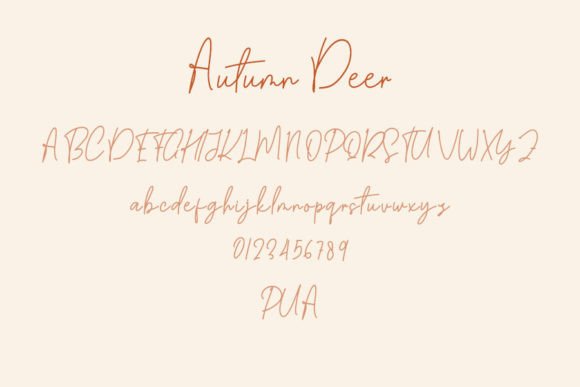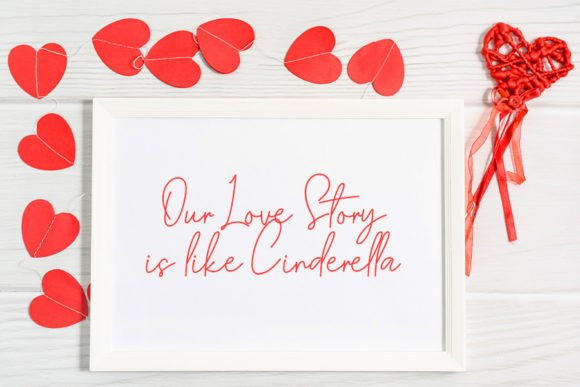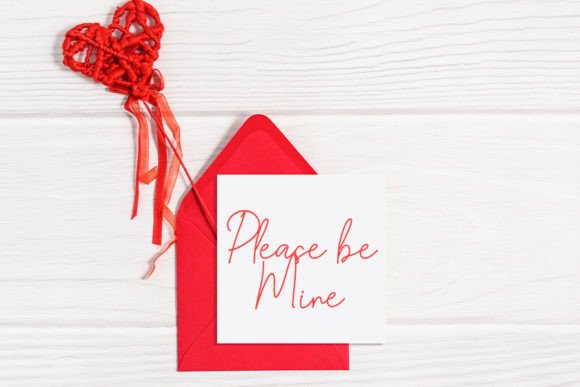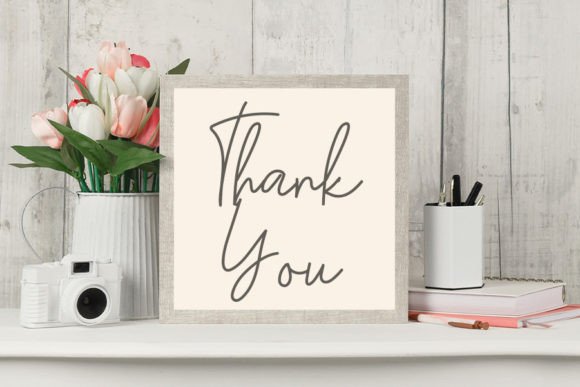
Get Ready to Fall in Love with Autumn Deer Font
As the leaves change colors and the crisp autumn air sets in, I find myself getting lost in the cozy atmosphere of the season. There’s something magical about wrapping up in a warm blanket, sipping hot apple cider, and getting creative. For me, that means reaching for my favorite fonts to add a touch of whimsy to my designs.
One font that never fails to catch my eye is the beautiful Autumn Deer Font. With its thin, softly curved characters, this script font has an alluring look that’s perfect for headlines, posters, covers, and crafting projects. Whether you’re a seasoned designer or a DIY enthusiast, the Autumn Deer Font is a valuable addition to your toolkit. Its unique charm makes it a standout choice for any project, and its versatility ensures that it will never go out of style.
Autumn Deer Font Key Features
- Unique Characteristics: Hand-drawn design with intricate details, capturing the essence of autumn and deer elements.
Autumn Deer Font Review
I recently had the chance to work with the Autumn Deer Font, and I must say it’s a beautiful addition to any project. ✨ The font’s unique blend of modern and vintage elements gives it a warm, inviting feel that’s perfect for autumn or winter-themed designs.
Here are some of the things that work well with this font:
- ✨ Unique design that stands out from more generic fonts
- ✨ Great for titles, headings, and other large text elements
- ✨ Comes in a range of weights and styles to suit different design needs
- ⚠️ Limited character set, which may not be suitable for longer blocks of text
- ⚠️ May not be as legible at small font sizes, which can make it harder to read
- ⚠️ Not as versatile as some other fonts, which may limit its use in certain design contexts
Overall, I think the Autumn Deer Font is a great choice for designers looking to add a touch of autumn charm to their projects. While it may have some limitations, its unique design and versatility make it a valuable addition to any design toolkit.
The Autumn Deer Font is perfect for fall-themed designs, such as:
- Seasonal invitations and greeting cards
- Fall-themed social media posts and ads
- Outdoor and nature-inspired designs